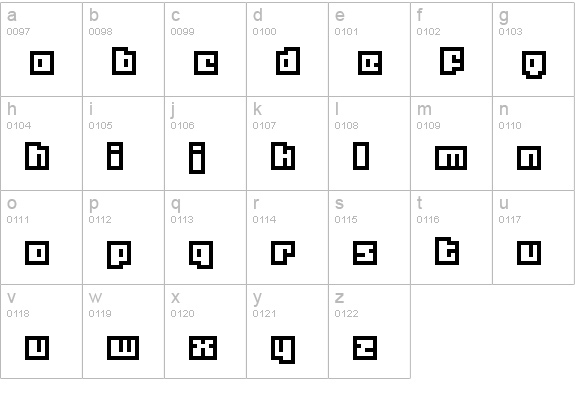
Gubblebum Blocky Font Details
Introducing Gubblebum Blocky font - a unique and playful typeface that will add a touch of whimsy to any design project. This charming font features chunky block letters with a fun and quirky style that is sure to stand out. Perfect for posters, greeting cards, branding, and more, Gubblebum Blocky font is a versatile addition to your font collection. What's even better is that this delightful font is completely free to download at FontsMarket.com. So go ahead and grab your copy of Gubblebum Blocky font today and let your creativity run wild!